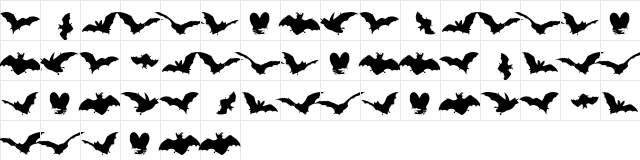
VampyrBats Regular
Design Context for VampyrBats Typeface
VampyrBats is a composed and adaptable typeface that performs quietly and consistently across a wide range of design contexts.